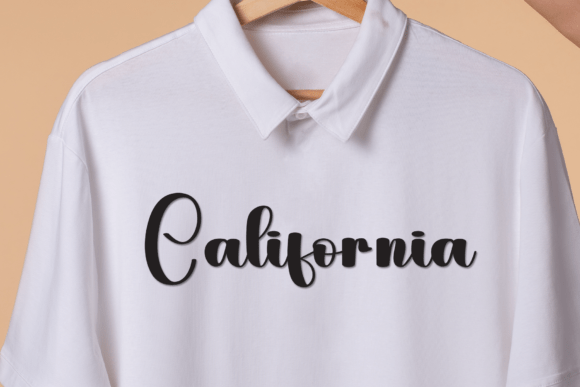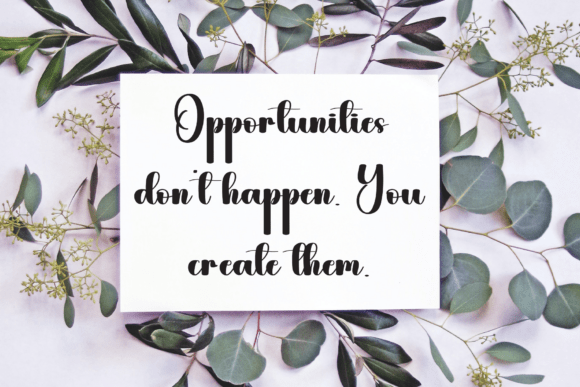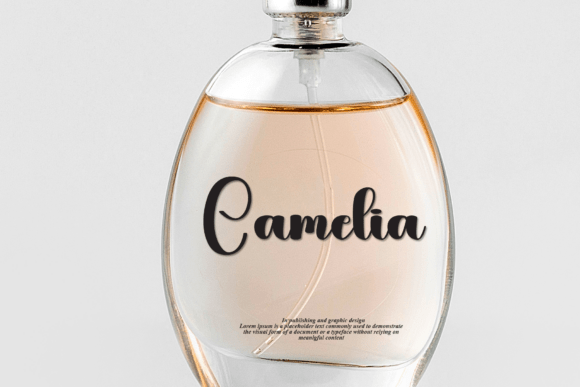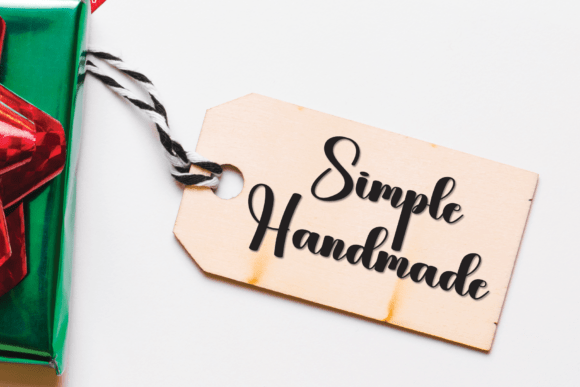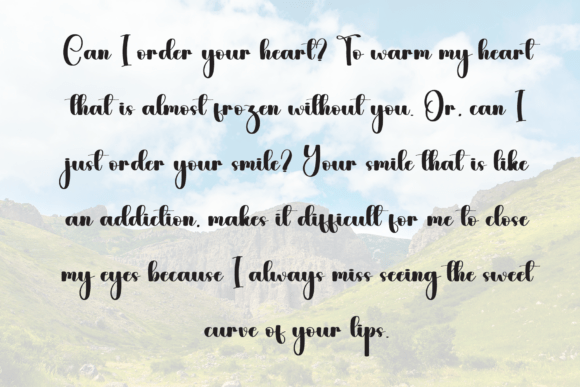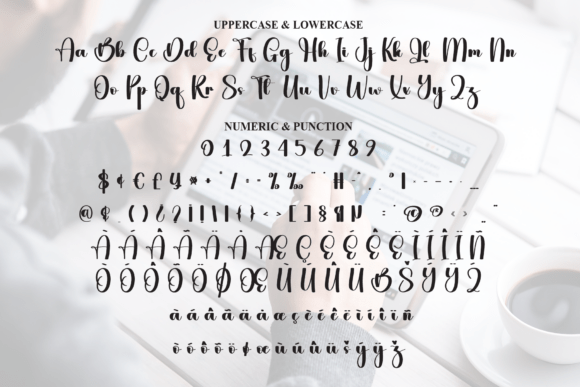
Introducing Feature Font: Elevate Your Designs with Artistic Flair and Contemporary Elegance
In the world of typography, few fonts manage to strike a balance between artistic expression and modern sophistication. Feature Font is one such exceptional typeface that embodies the perfect blend of fluid brush strokes, dynamic curves, and expressive letterforms. This stylish script font is designed to bring a touch of hand-painted calligraphy to your designs, infused with a contemporary twist that sets it apart from traditional fonts.
The Artistry of Feature Font
Feature Font is more than just a typeface; it’s an artistic statement. Its fluid brush strokes give it a natural, hand-painted feel that evokes the elegance of calligraphy. Each letterform is meticulously crafted to convey a sense of movement and fluidity, as if the words themselves are dancing across the page. The dynamic curves and expressive lines add a level of sophistication and refinement, making it perfect for designs that demand a high level of creativity and elegance.
One of the standout features of Feature Font is its incredible versatility. Whether you’re designing a logo, crafting an invitation, working on packaging, or creating engaging social media graphics, this font is up to the task. Its unique blend of artistic flair and contemporary elegance ensures that it can adapt to a wide range of design contexts, adding a creative and sophisticated touch to any project.
Ideal Applications for Feature Font
• Logos: Make a lasting impression with a logo that exudes elegance and creativity. Feature Font’s unique letterforms and fluid strokes ensure that your brand stands out from the competition.
• Invitations: Whether it’s a wedding, a birthday party, or a corporate event, Feature Font adds a touch of sophistication and glamour to your invitations, setting the tone for a memorable occasion.
• Packaging: Elevate your product packaging with a font that combines artistic flair with contemporary elegance. Feature Font can help your product stand out on crowded store shelves.
• Social Media Graphics: Create engaging and stylish social media graphics that capture the attention of your audience. Feature Font’s versatility ensures that it works well across various platforms and design formats.
The Benefits of Using Feature Font
Feature Font offers several benefits that make it an excellent choice for designers and crafters:
• Visual Impact: Its unique design and fluid brush strokes ensure that your designs leave a lasting impression.
• Versatility: Use it across a variety of design projects, from logos and invitations to packaging and social media graphics.
• Elegance and Sophistication: Add a touch of hand-painted calligraphy with a modern twist to your designs.
• Easy to Read: Despite its artistic nature, Feature Font remains highly legible, making it suitable for both headlines and body text.
Tips for Getting the Most Out of Feature Font
To maximize the impact of Feature Font, consider the following tips:
• Experiment with Colors: Take advantage of the font’s vibrant character by experimenting with different colors and gradients.
• Play with Ligatures: Feature Font comes with a range of ligatures that can add an extra layer of elegance to your designs.
• Mix and Match: Don’t be afraid to combine Feature Font with other typefaces to create a unique and visually appealing design.
• Pay Attention to Spacing: Ensure that your text is well-spaced to maintain the font’s natural flow and readability.
Font Name Feature Font
Feature Font is a stylish script font that brings a perfect blend of artistic flair and contemporary elegance to your designs. Its fluid brush strokes, dynamic curves, and expressive letterforms make it an excellent choice for designers and crafters looking to add a creative and sophisticated touch to their projects. With its versatility and visual impact, Feature Font is set to become a go-to typeface for a wide range of design applications.